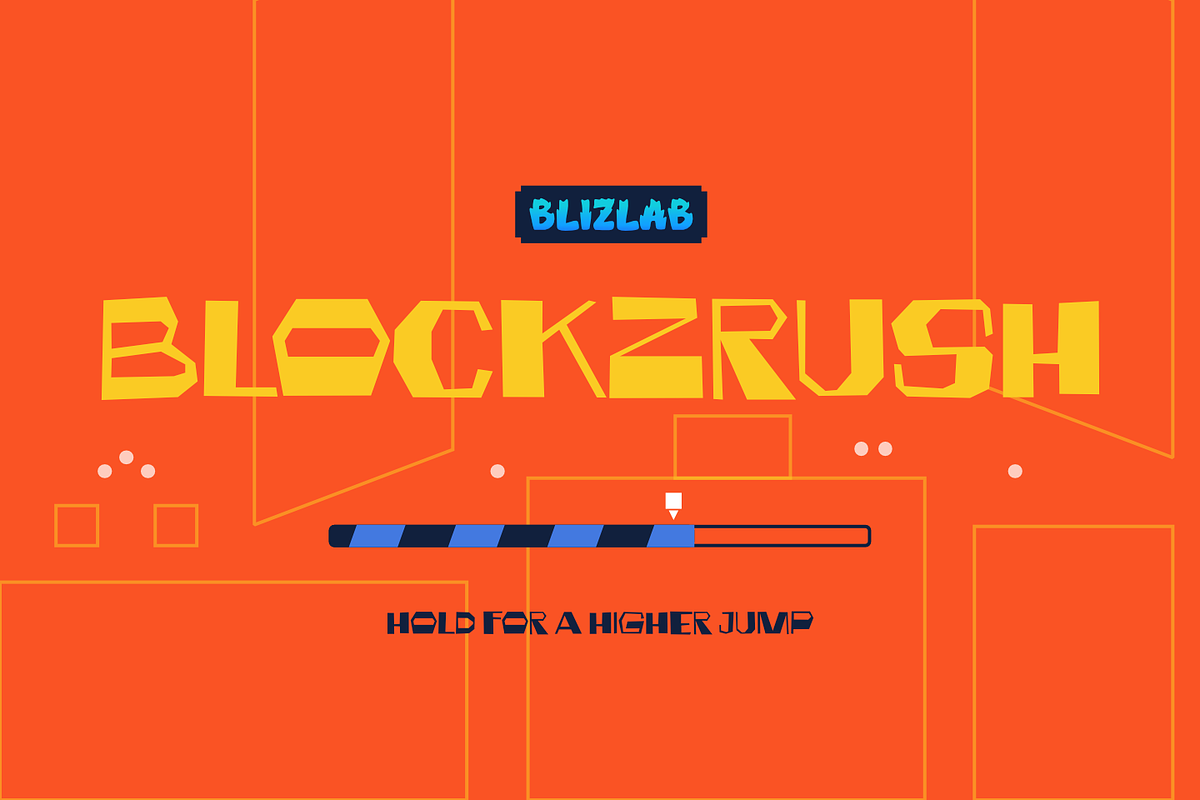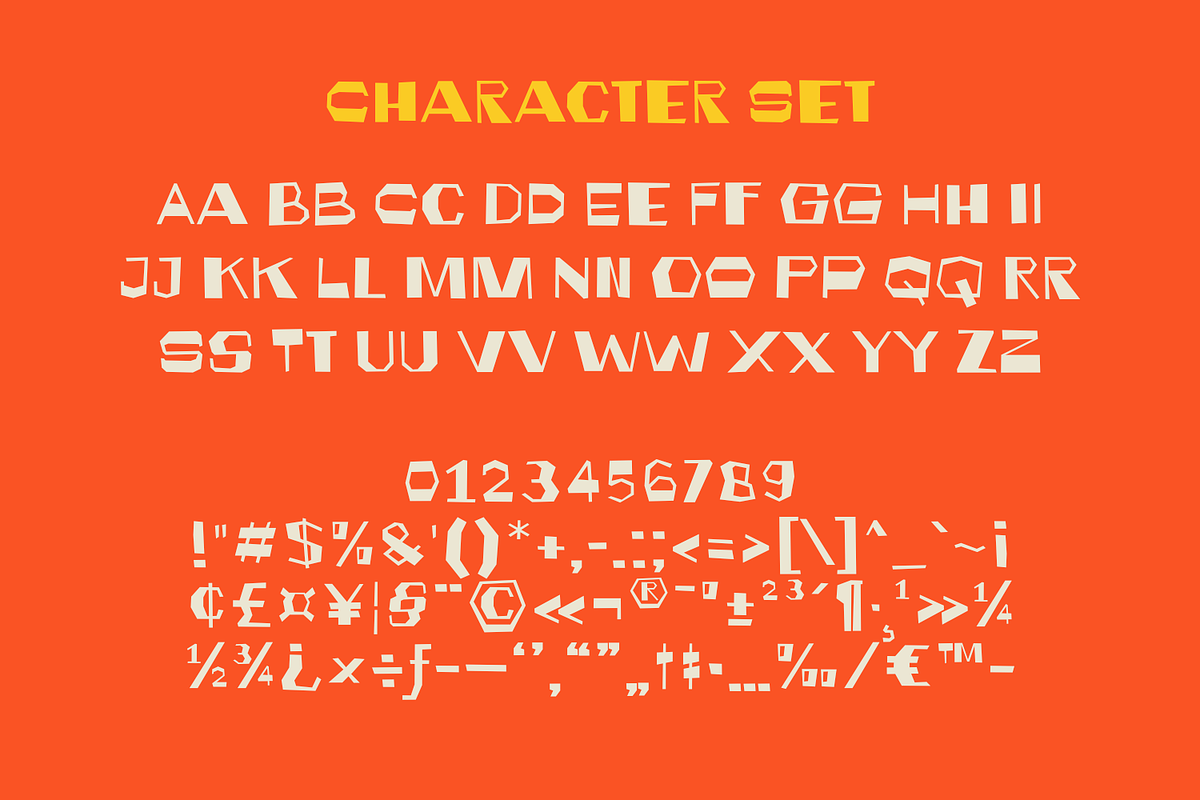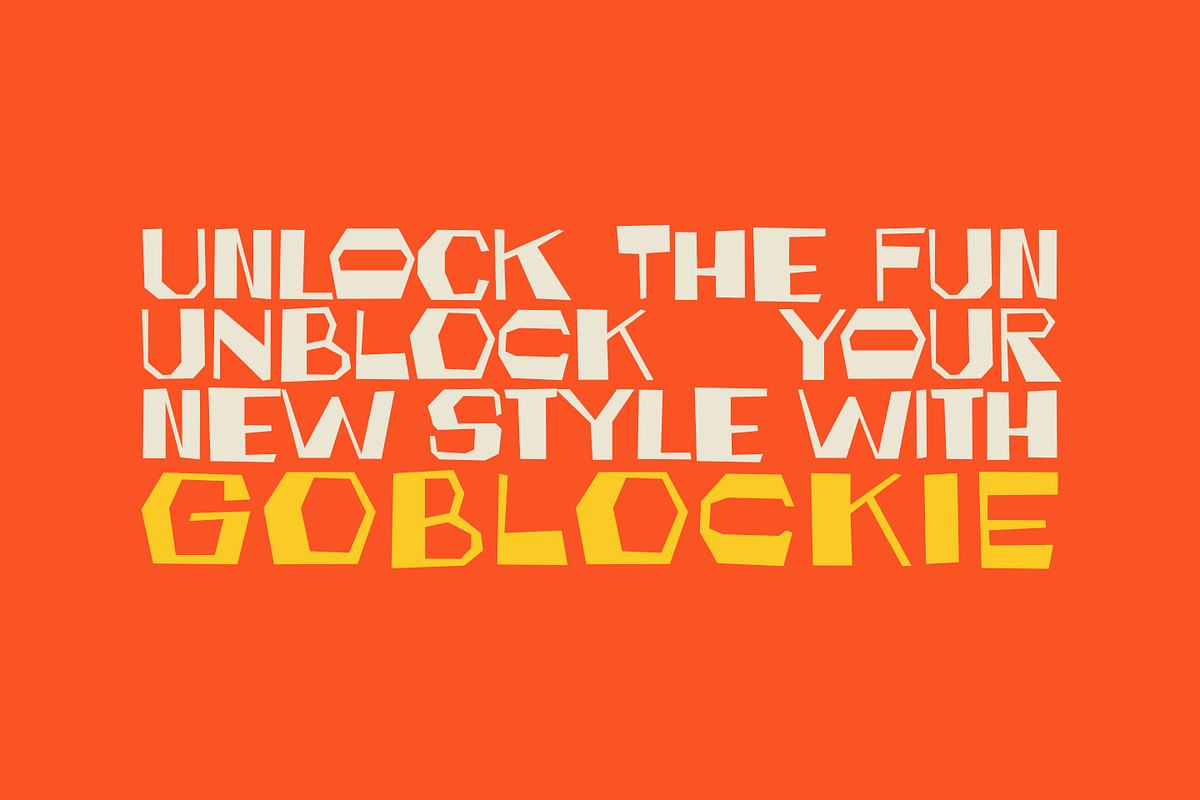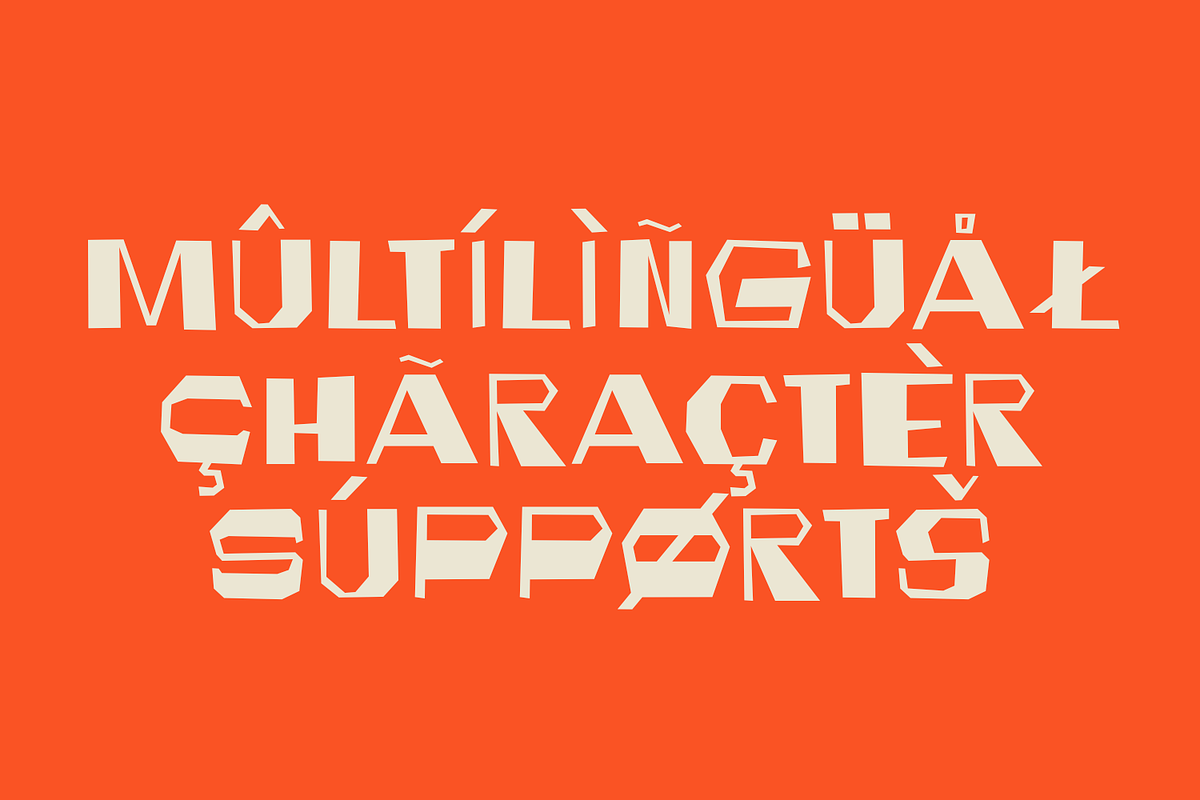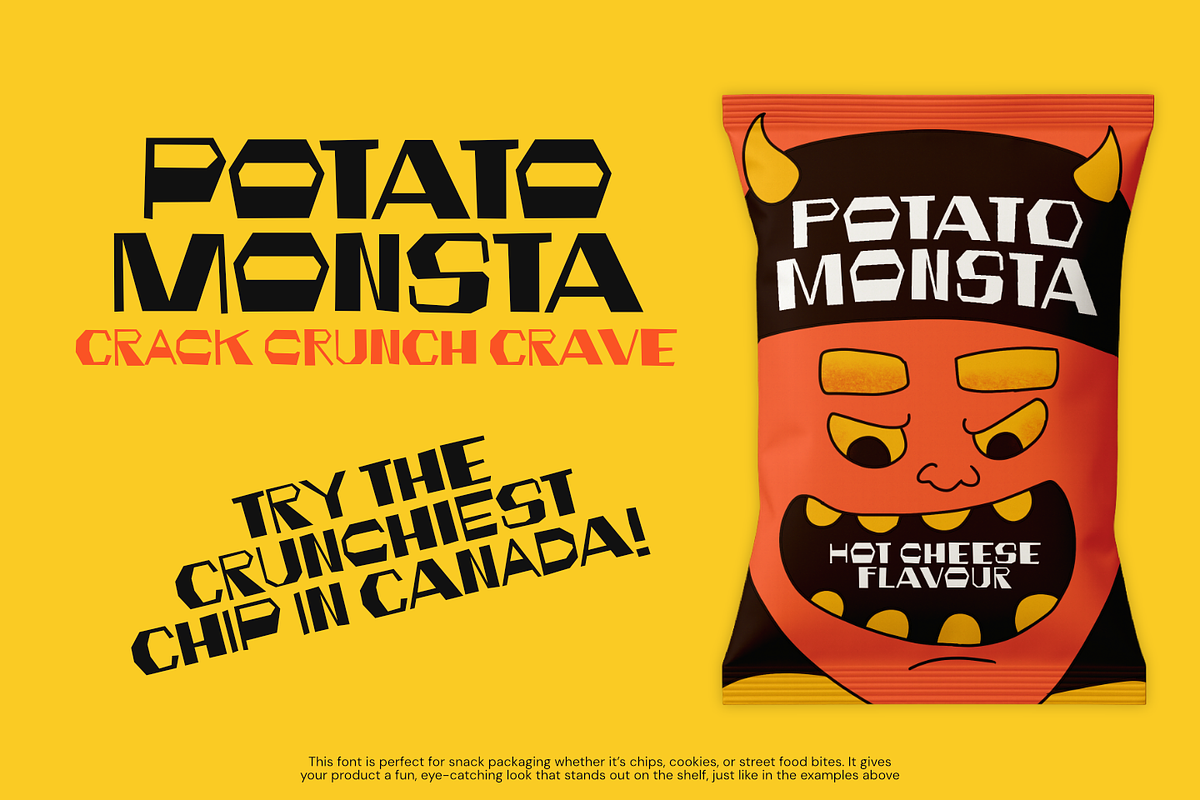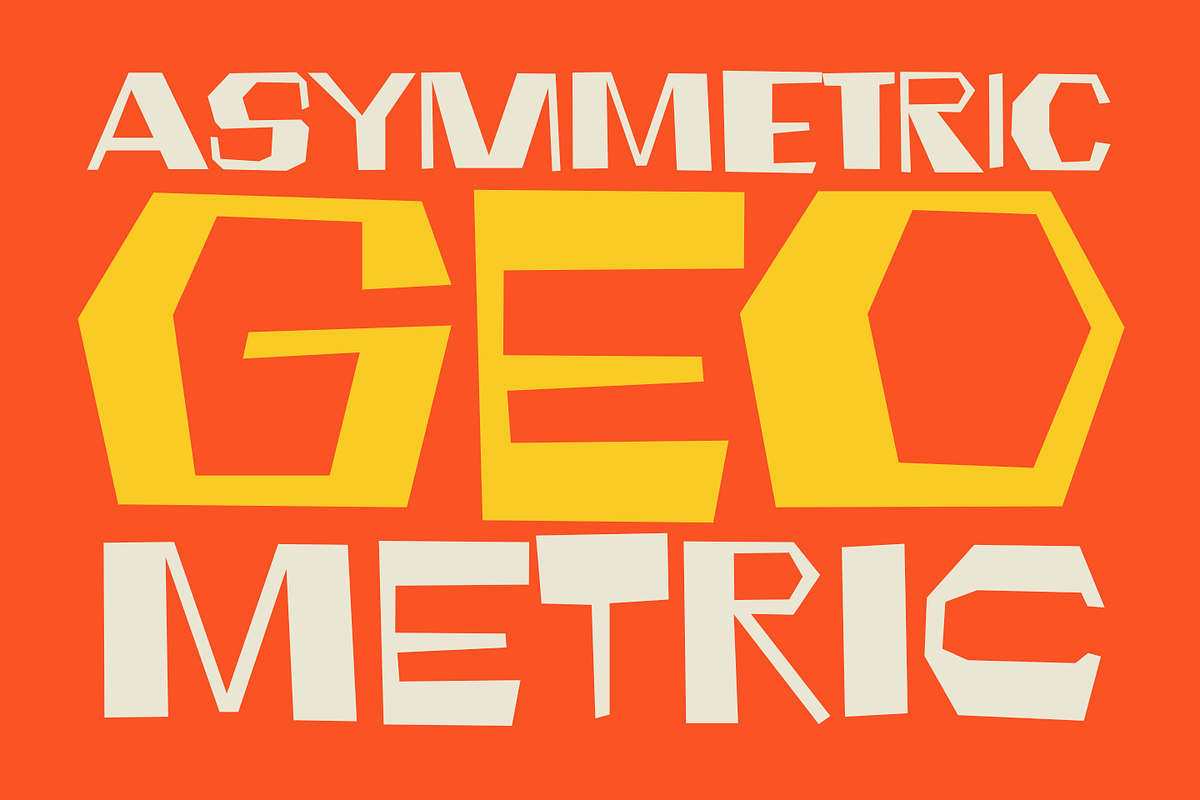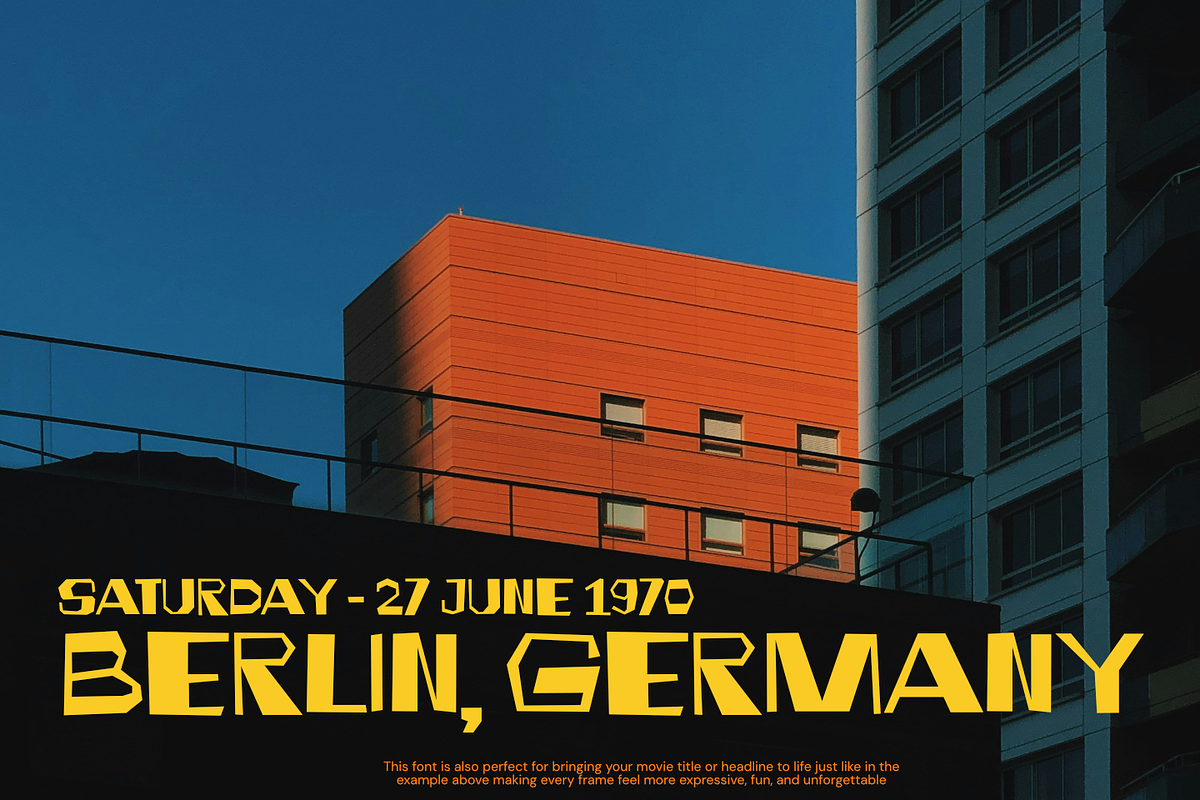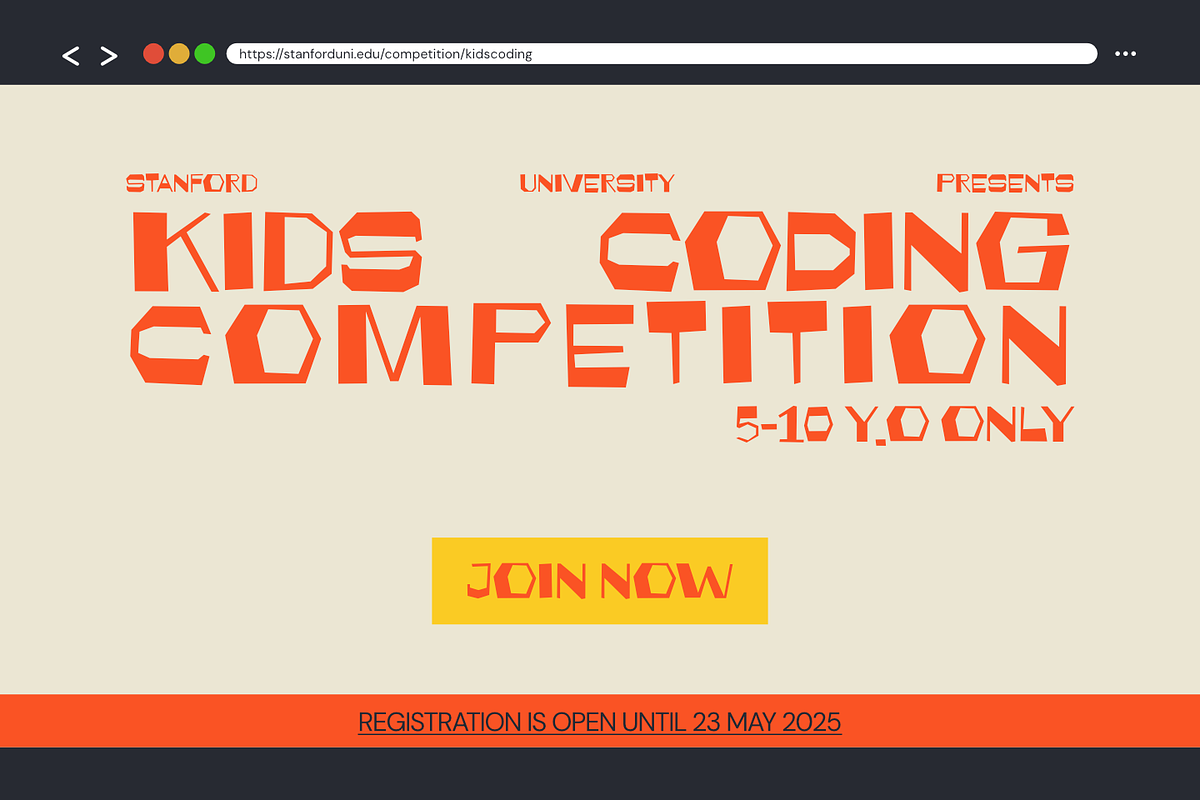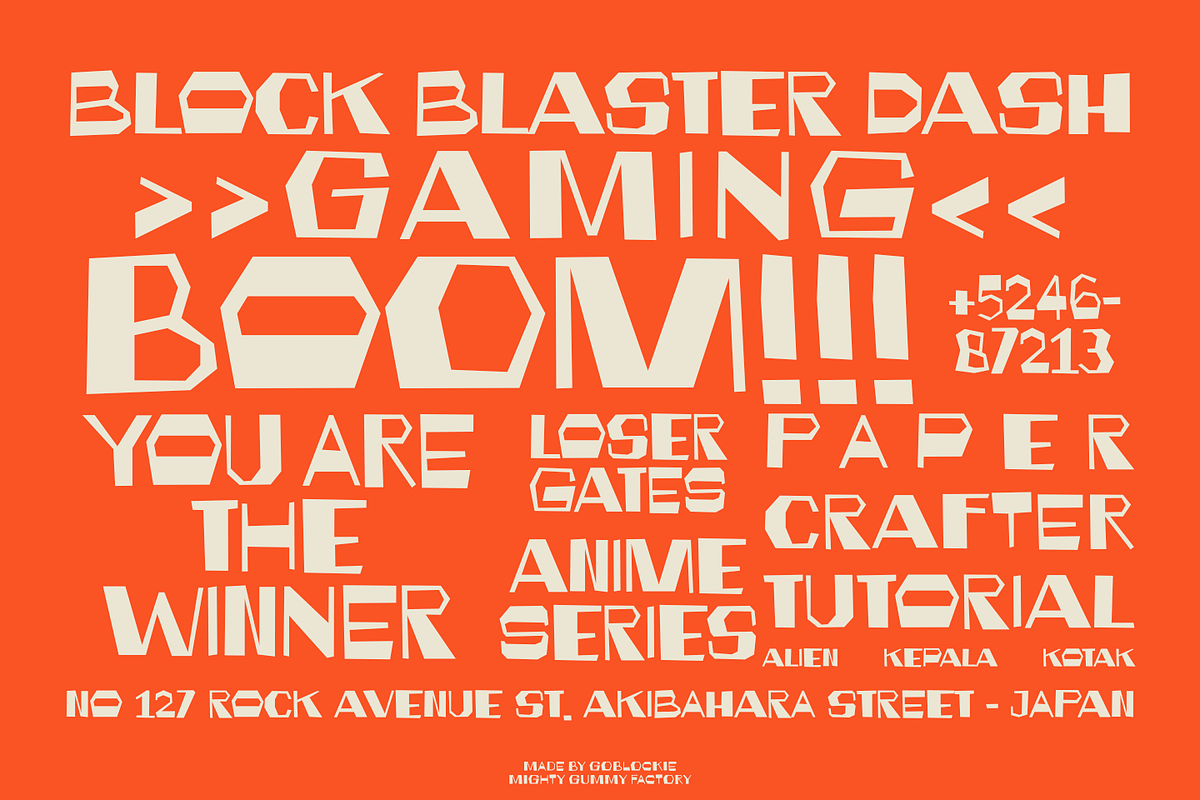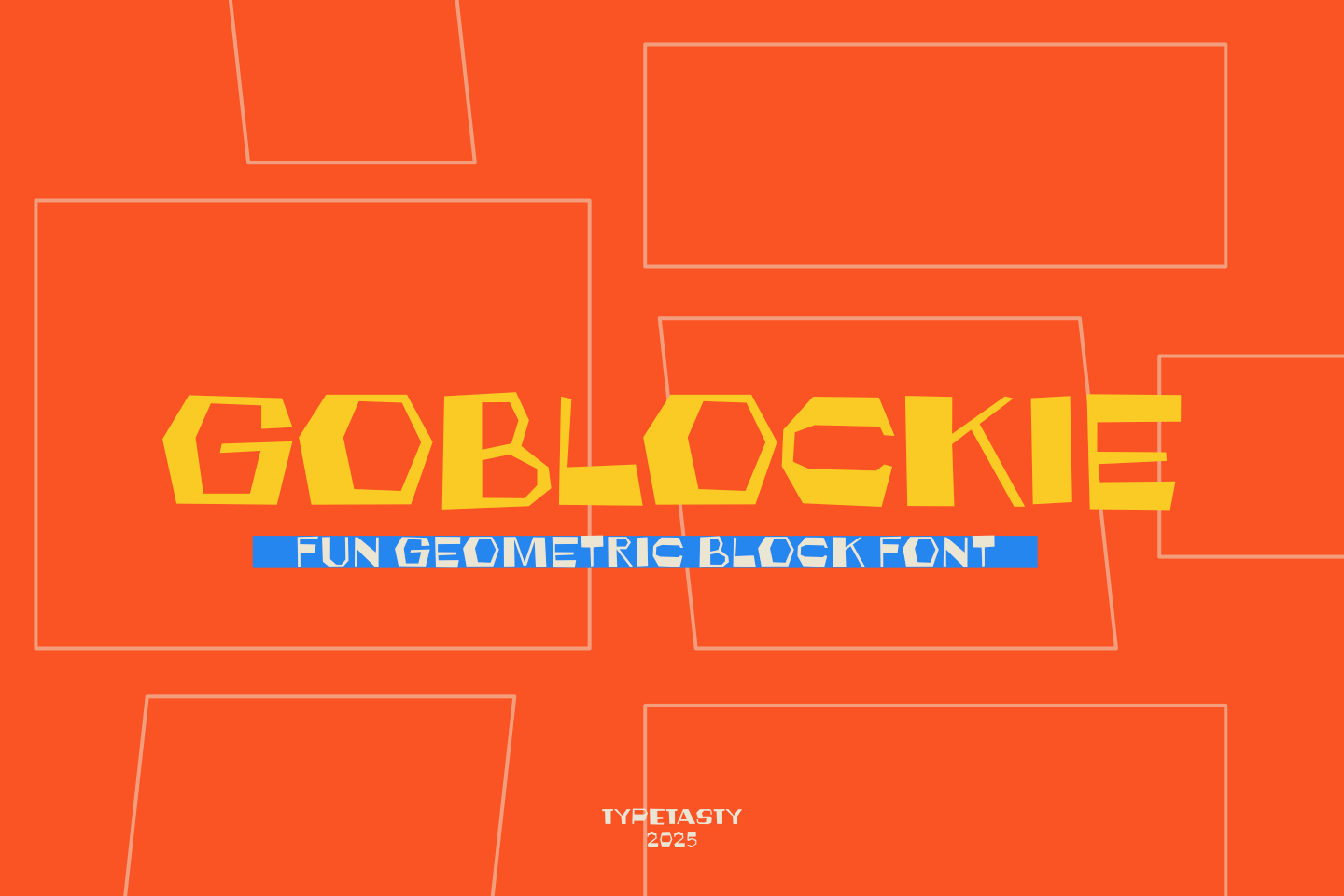
GOBLOCKIE – Geometric Block Font
GOBLOCKIE is a bold and blocky display font packed with quirky geometric charm. Its fun, irregular letterforms are perfect for playful branding, kids-themed graphics, indie game design, or standout social media posts. Whether you’re designing for posters, packaging, or digital content, GOBLOCKIE brings energy, character, and standout appeal to every letter you type.
Style & Energy: GOBLOCKIE is a fun, quirky, and energetic display font built from bold, angular blocks. With its irregular geometry and confident posture, this typeface gives your message a burst of creative energy.
Ideal For: Youthful branding, kids’ content, educational posters, indie games, toy packaging, YouTube thumbnails, or any design that needs a playful punch.
Letterform Structure: Geometric, all-caps, handcrafted with offbeat polygonal cuts and stylized corners.
Best Use Cases: Logo design, poster headlines, video titles, children’s book covers, DIY packaging, modern flyers, and digital stickers.
Tired of boring fonts that don’t move the needle? GOBLOCKIE is your perfect design sidekick a bold, blocky typeface full of attitude and edge. Whether you’re working on a kid-friendly campaign or a cool creative project, GOBLOCKIE makes sure your message lands with impact.
Numbers & essential punctuation
Unique character shapes inspired by modular blocks
Designed for high visibility and creative branding
Kids product branding
Creative social media graphics
Poster and flyer headlines
Indie video game titles
YouTube & streaming overlays